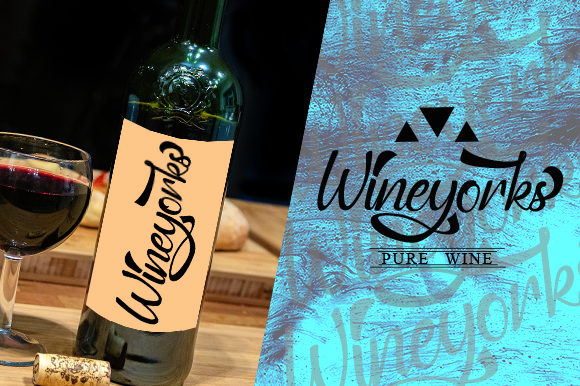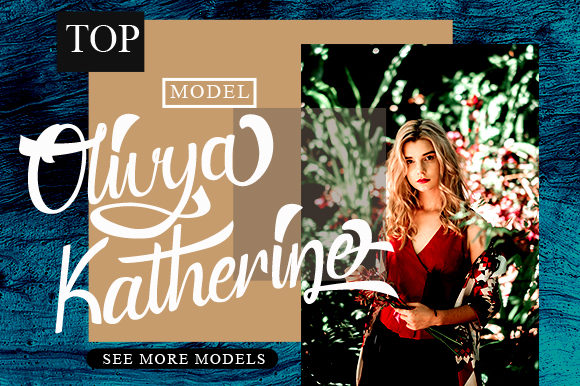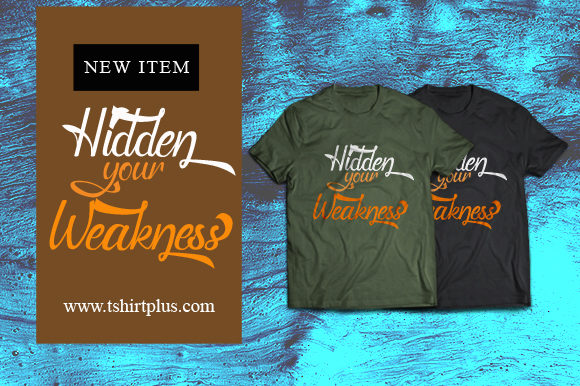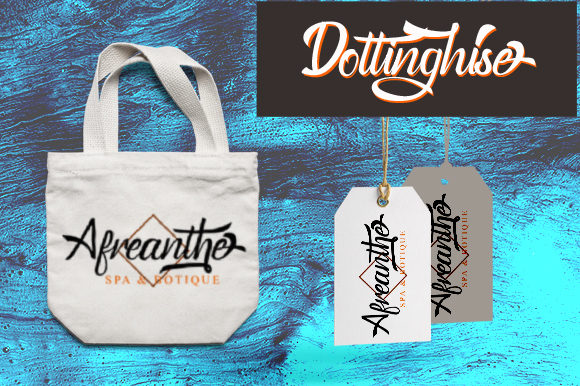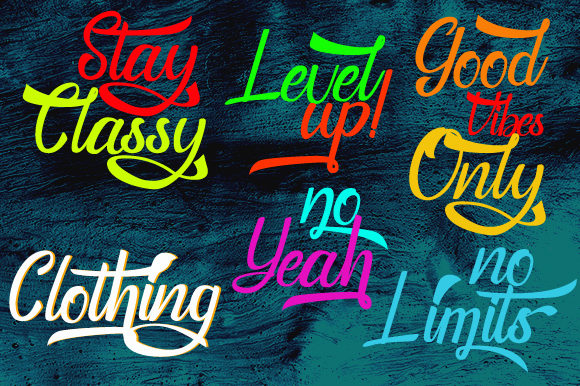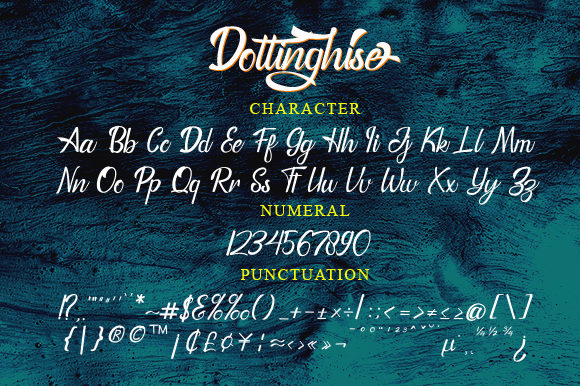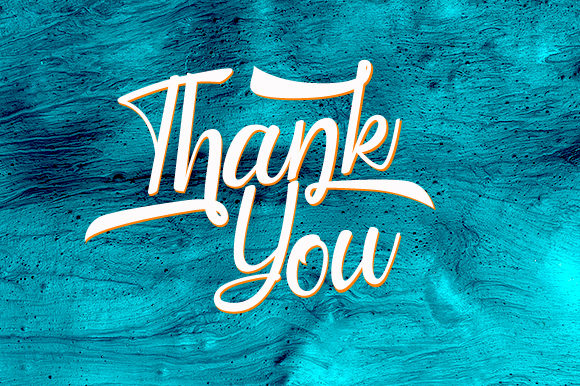
Dottinghise Font
About Dottinghise Font
Dottinghise is a classic and modern handwritten font. It features a varying baseline, smooth lines, gorgeous glyphs and stunning alternates. It will elevate a wide range of design projects to the highest level, be it branding, headings, wedding designs, invitations, signatures, logos, labels, and much more!